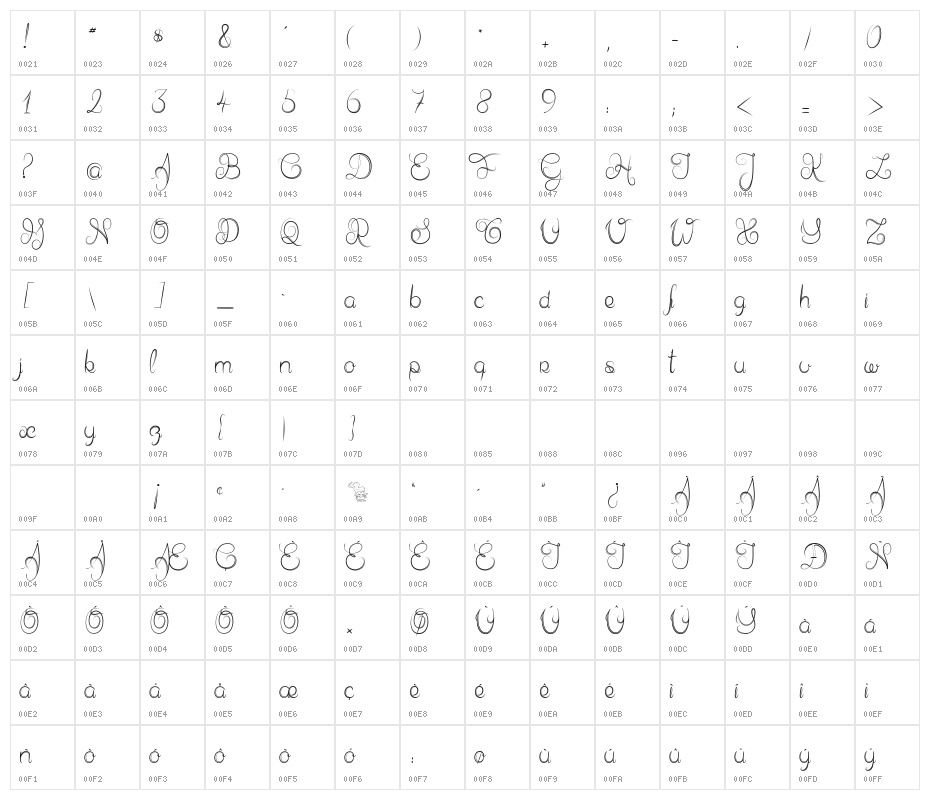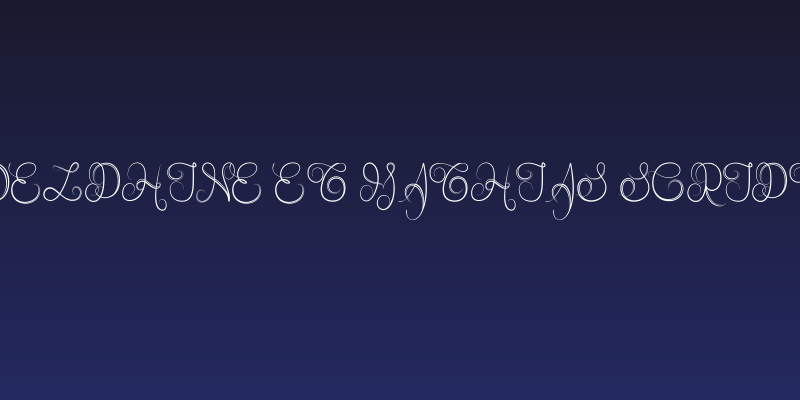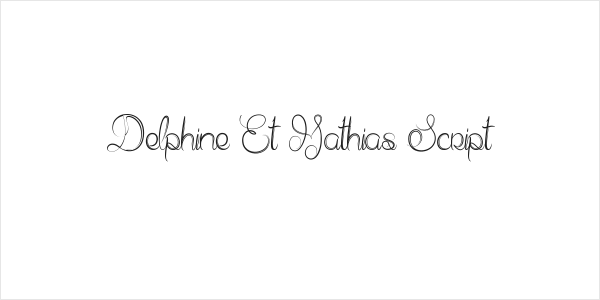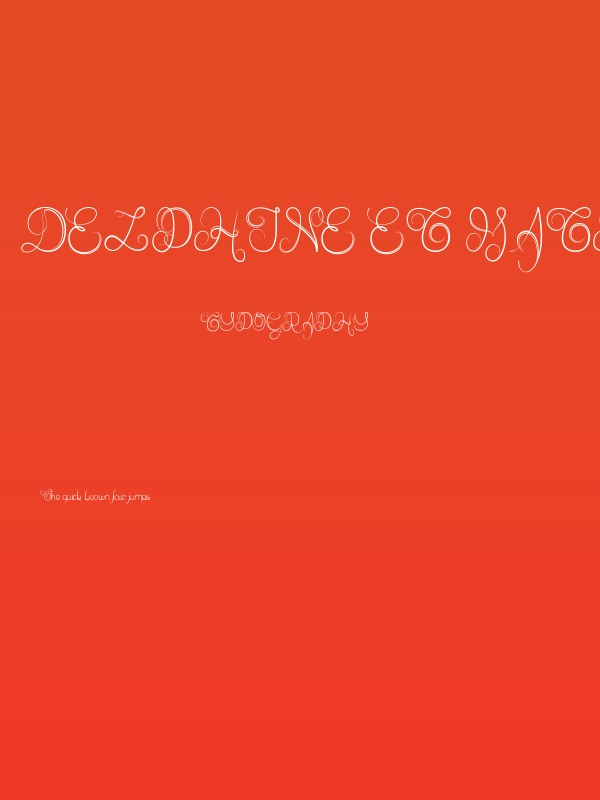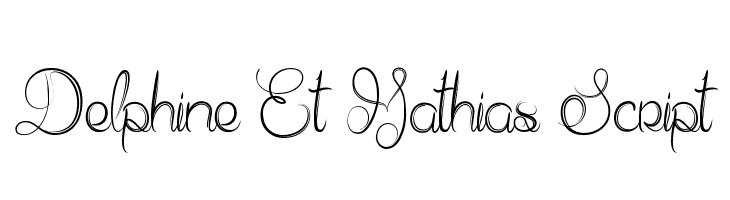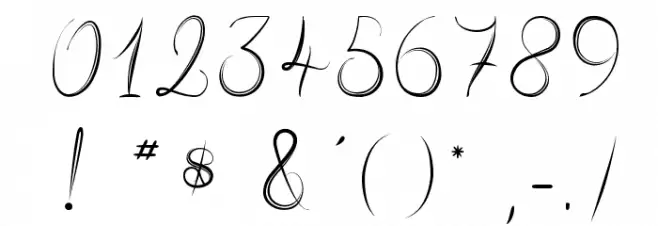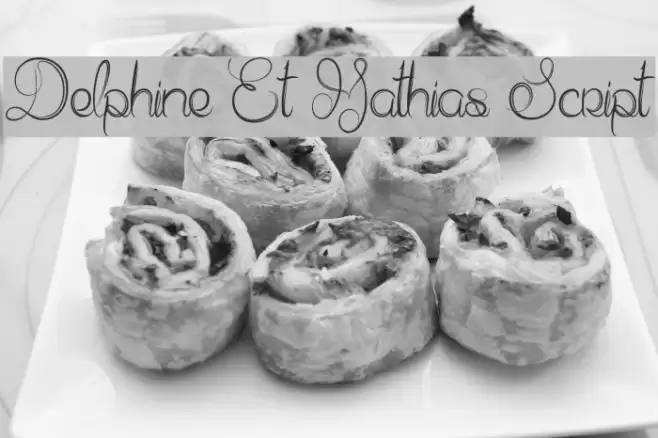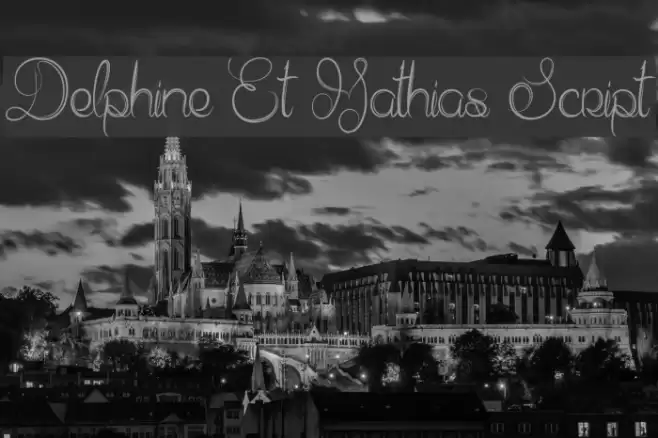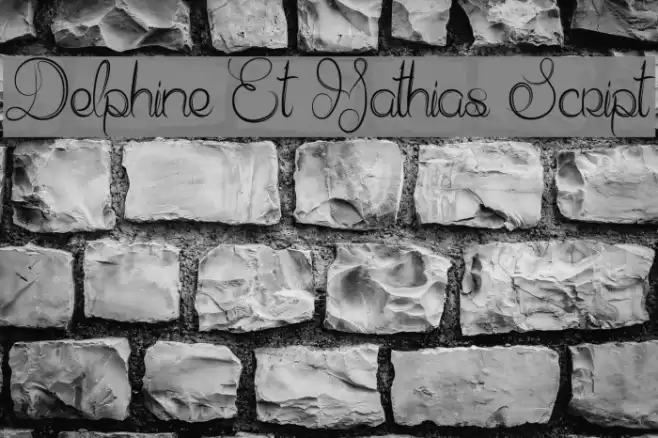
Delphine Et Mathias Script Font
Delphine Et Mathias Script Description
This script font exudes elegance and sophistication with its intricate, flowing lines and graceful curves. Each letter is crafted with a sense of fluidity, creating a harmonious balance between form and function. The uppercase letters are particularly ornate, featuring elaborate swirls and loops that add a touch of whimsy and charm. The lowercase letters maintain a more subdued elegance, with gentle curves and a slight slant that enhance readability. Numbers and special characters are designed with the same attention to detail, ensuring a cohesive look across all elements. This font is perfect for projects that require a touch of class and refinement, such as wedding invitations, formal event programs, or luxury branding.
| Overall Style | Elegant, Sophisticated |
| Use Case | Headlines, Invitations, Branding |
| Proposed Projects | Ideal for wedding invitations, formal event programs, luxury branding, and elegant stationery. |